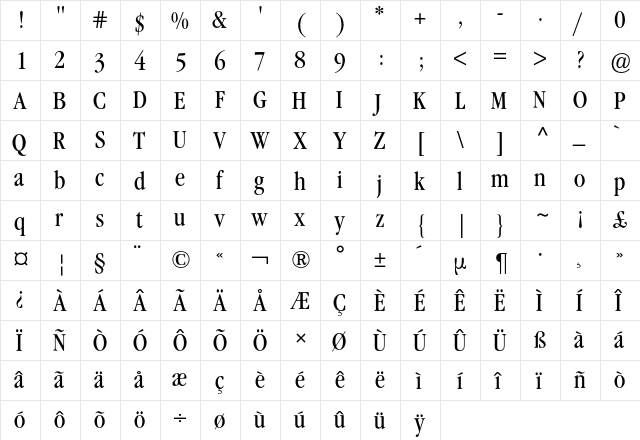
Garamond ITC Condensed BQ Regular
Design Context for Garamond ITC Condensed BQ Typeface
Garamond ITC Condensed BQ takes a measured approach to typography — its balanced proportions and neutral character make it a reliable workhorse for both digital and print work. Its narrow stance lets it pack a punch even in space-constrained designs.